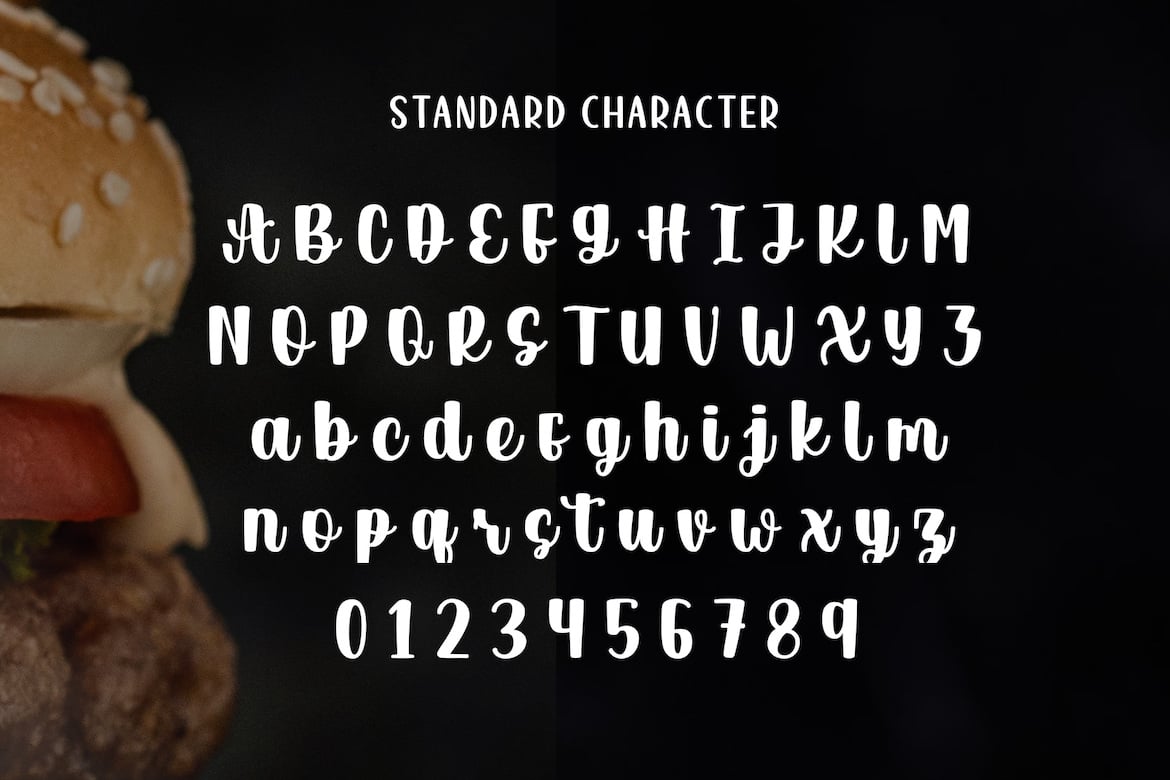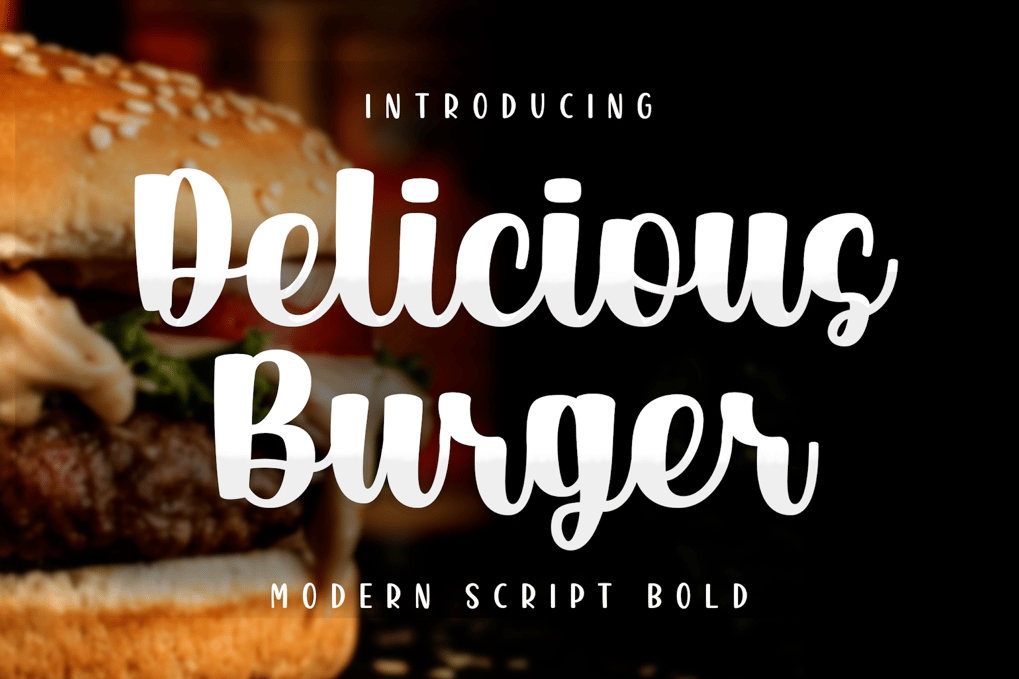
Delicious Burger – Bold Script Display Font
Delicious Burger is a bold and flavorful script font, perfect for capturing attention. Ideal for food posters and food or drink logos, this versatile font can also be used for printing, crafting, product tags, and more. Enhance your designs with the eye-catching and appetizing style of Delicious Burger.